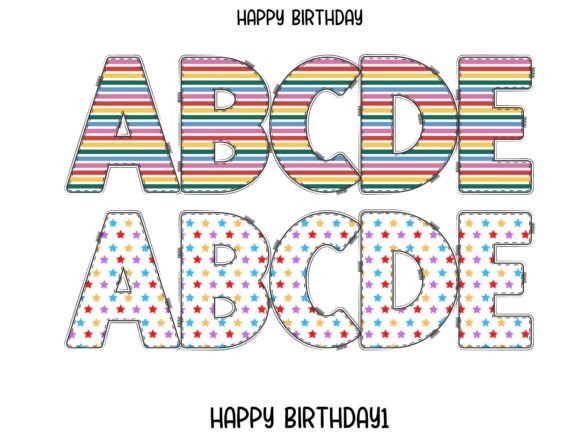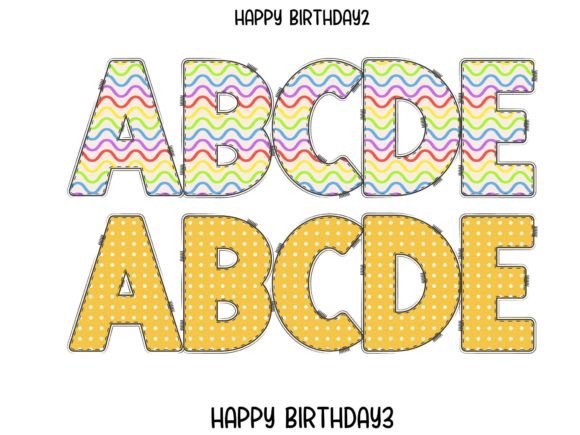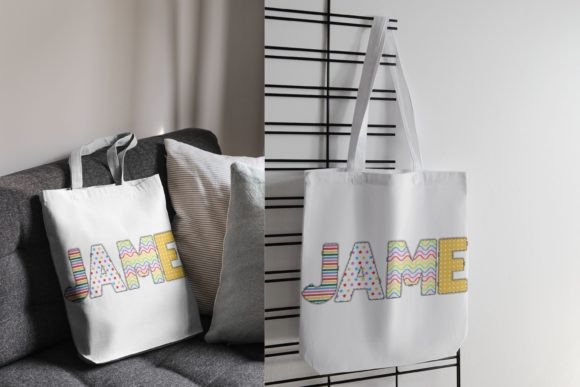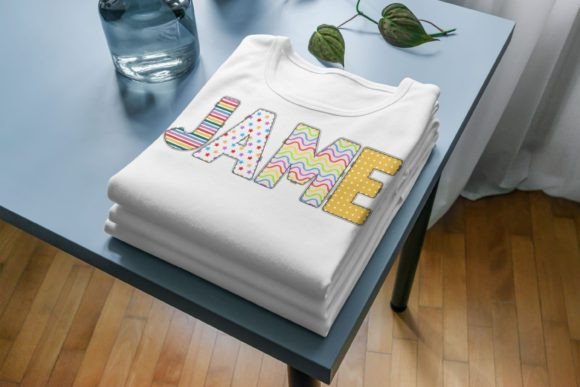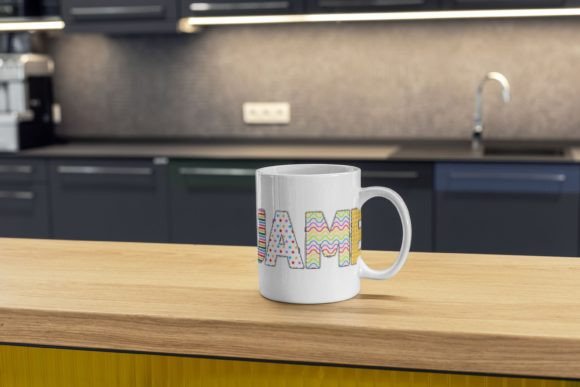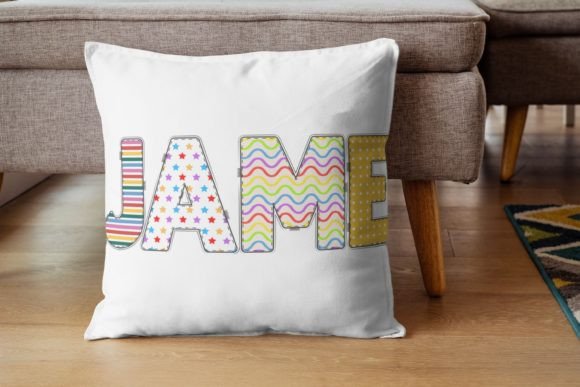
Wishing You a Font-tastic Celebration
As designers, we’ve all been there – staring at a blank canvas, searching for that perfect font to bring our creative vision to life. And then, it happens. A spark of inspiration hits, and we find ourselves grinning from ear to ear, eager to dive into the project. For me, that moment came when I discovered the Happy Birthday Font – a delightful, modern font that screams joy and playfulness.
Happy Birthday Font is more than just a font; it’s a celebration of life’s special moments. With its cute and lovely design, it’s the perfect choice for any activity that requires a jolly touch. Whether it’s a birthday party, a wedding, or a simple greeting card, this font adds a personal and authentic touch that’s hard to resist.
For designers, the Happy Birthday Font is a valuable addition to their toolkit. Its versatility and friendliness make it a go-to choice for projects that require a touch of whimsy and fun. So, let’s dive into the world of Happy Birthday Font and explore its many uses and benefits.
Key Features of Happy Birthday Font
- Font Family: A custom-designed font specifically for celebrating birthdays, with a playful and celebratory feel.
- Font Size: Designed to be scalable, with a recommended size range of 12-48 points for optimal legibility.
- Resolution: Optimized for high-resolution displays, with a resolution of 300 DPI (dots per inch) or higher for crisp and clear rendering.
- Unique Characteristics: The font features a distinctive, hand-drawn aesthetic with bold lines, rounded shapes, and a vibrant color palette, making it perfect for adding a personal touch to birthday invitations, cards, and decorations.
Happy Birthday Font Review
I was excited to dive into the Happy Birthday Font, but my expectations were met with a mix of delight and disappointment. ✨ Here are the things that work well:
- Unique and playful style: The font has a fun, celebratory vibe that’s perfect for birthday invitations, party decorations, and other festive designs.
- Customizable: The font comes in various weights and styles, allowing you to tailor it to your specific design needs.
However, there are also some limitations to consider: ⚠️
- Limited compatibility: The font may not work well with certain fonts or design software, which can be frustrating for users.
- Not ideal for body text: Due to its playful style, the font can be difficult to read in large blocks of text, making it better suited for titles and headings.
- Not scalable: The font may become distorted or lose its charm when resized, which can be a problem for designs that require flexibility.
Overall, the Happy Birthday Font is a fun and creative addition to any design project. While it has its limitations, it’s perfect for those who need a playful, eye-catching font for special occasions.
Happy Birthday Font Practical Application Guide
Here are some tips to help you get the most out of the Happy Birthday Font:
- Use the font in conjunction with bright, bold colors to create a festive atmosphere.
- Experiment with different font sizes and styles to add visual interest to your design.
- Use the font to create a custom birthday invitation or card.
The Happy Birthday Font is perfect for:
- Birthday invitations and cards.
- Birthday party decorations and signage.
- Custom